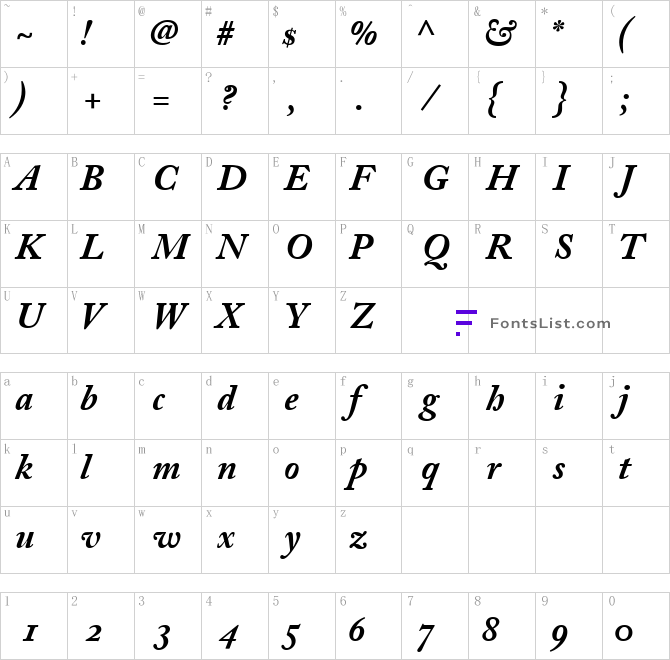
AdobeCaslonOldstyleFigures-Bold-Italic.ttf is a very beautiful artistic font, AdobeCaslonOldstyleFigures-Bold-Italic.ttf is widely used in the design and printing of various books and pictures,AdobeCaslonOldstyleFigures-Bold-Italic.ttf has a strong visual impact,AdobeCaslonOldstyleFigures-Bold-Italic.ttf is a commonly used font in newspapers, magazines and books, and is used in posters, e-commerce Poster design, store design, logo design, font design and other fields.AdobeCaslonOldstyleFigures-Bold-Italic.